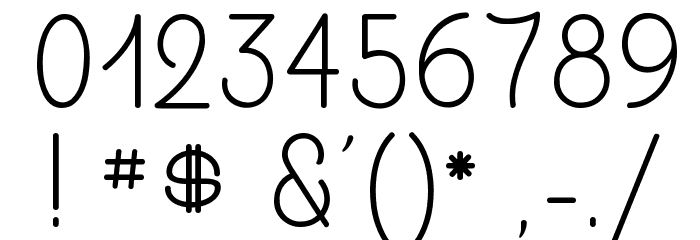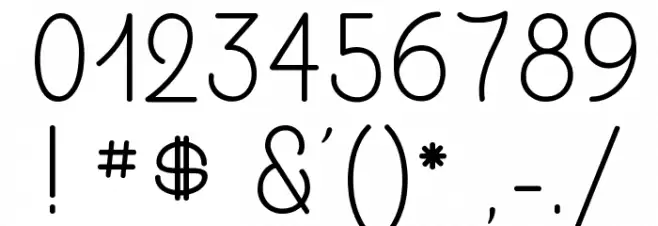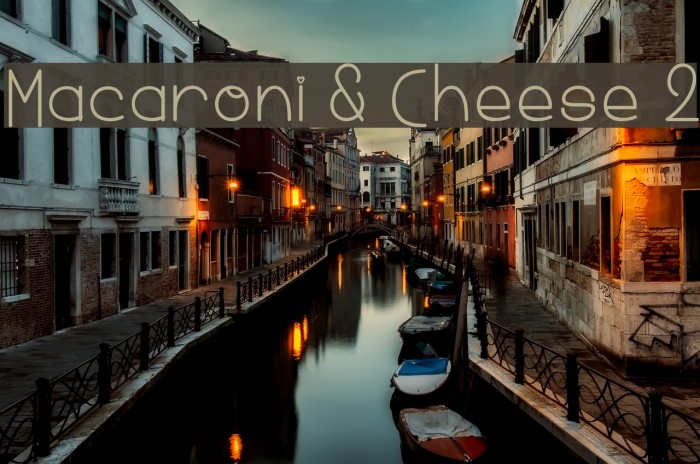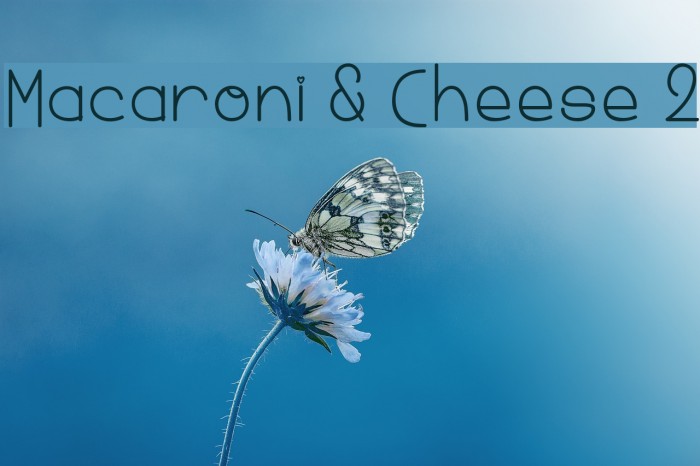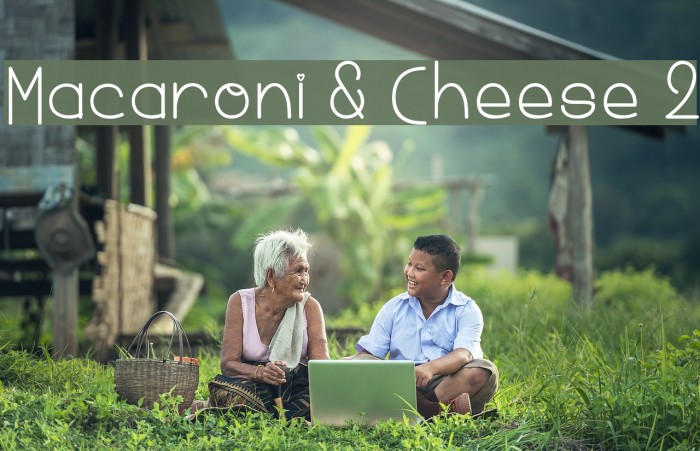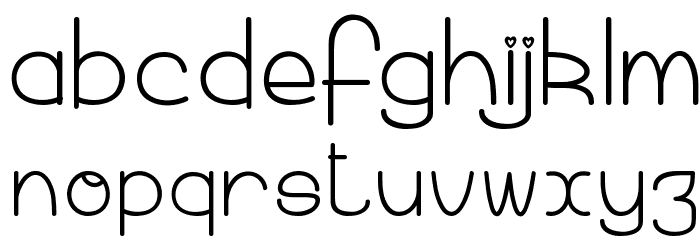
Macaroni & Cheese 2 Font
Macaroni & Cheese 2 Description
This playful and whimsical font features rounded, tubular letterforms that evoke a sense of fun and creativity. The characters are evenly spaced with a consistent stroke width, giving it a clean and approachable appearance. The uppercase and lowercase letters maintain a uniform height, enhancing readability while adding a touch of charm. The numerals and special characters are designed to match the playful style, making this font suitable for a variety of creative projects. Its unique style is perfect for adding a lighthearted and friendly touch to any design.
A playful, rounded font with tubular letterforms and consistent spacing from Uncategorized fonts.
- Proposed Projects: Ideal for children's books, playful branding, party invitations, and creative posters.
- Overall Style: Playful